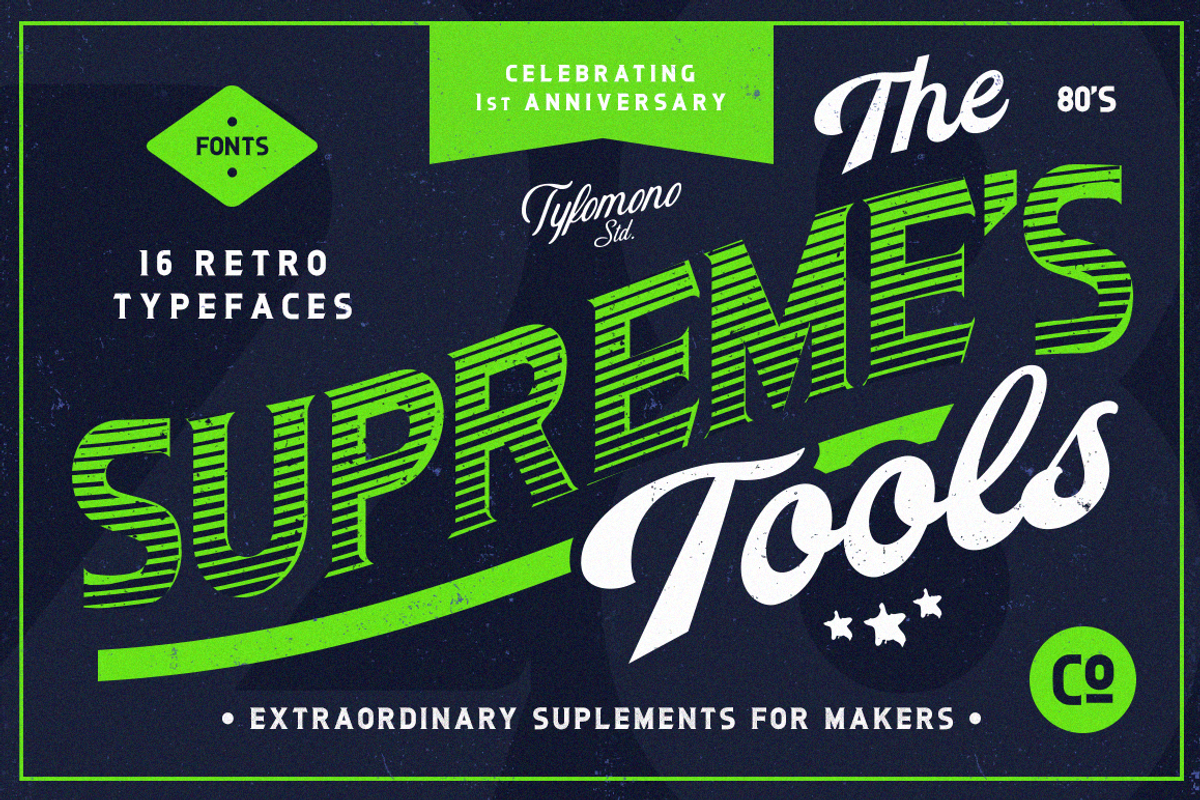
Supreme Tools • 16 Fonts Pack is perfect for tool company branding, industrial equipment labeling, workshop signage systems, construction business materials, automotive industry graphics, hardware store promotions, machinery manufacturer branding, technical documentation design, engineering firm communications, craftsman tool packaging, professional trade materials, and authoritative industrial communications.
Supreme Tools • 16 Fonts Pack is exciting because it delivers an unparalleled collection of 16 precisely engineered typefaces that embody the strength, reliability, and professional excellence associated with premium tools and industrial craftsmanship. This comprehensive font pack features diverse styles ranging from bold industrial display fonts to clean technical typefaces, each crafted to reflect the precision, durability, and superior quality that defines professional-grade tools and equipment. The collection's extensive variety ensures perfect typography for any project requiring industrial strength and professional reliability.
Supreme Tools • 16 Fonts Pack includes comprehensive font families: Industrial Bold Display, Technical Precision Sans, Workshop Script Style, Heavy Duty Condensed, Professional Clean Format, Mechanical Engineering Font, Tool Brand Signature, Construction Site Bold, Automotive Industry Type, Hardware Store Display, Craftsman Traditional Style, Modern Industrial Sans, Technical Documentation Font, Workshop Safety Signage, Professional Trade Script, and Specialty Tool Symbols, providing unlimited creative possibilities for industrial and professional design projects.
This powerful typography collection transforms standard communications into authoritative industrial experiences through its comprehensive variety of professional aesthetics and technical design principles. Supreme Tools • 16 Fonts Pack Free Download enables designers and industrial brands to access the most extensive premium tool typography collection that instantly adds strength, professionalism, and industrial authority to any creative project. The pack's incredible diversity ensures perfect font combinations while maintaining consistent quality and distinctive professional character across all 16 styles.
Tool manufacturers, industrial companies, and professional trade businesses trust Supreme Tools • 16 Fonts Pack for its ability to communicate quality, reliability, and professional excellence to audiences seeking superior tools and industrial solutions. The typeface collection's robust construction performs exceptionally well across various applications, from technical documentation to large-scale industrial branding campaigns. Its extensive character support includes multilingual capabilities and industry-specific design elements that enhance professional industrial brand presentations.
The design philosophy behind Supreme Tools • 16 Fonts Pack celebrates the precision engineering and professional craftsmanship that defines superior tool manufacturing and industrial excellence. This quality-focused approach creates a font collection that feels genuinely professional while maintaining contemporary relevance across different industrial contexts and professional brand expressions.
Whether creating tool company identities, industrial equipment materials, or professional trade campaigns, this comprehensive 16-font pack delivers exceptional results that embody the strength and reliability of premium tools. Download Supreme Tools • 16 Fonts Pack today and discover how the ultimate industrial typography collection can transform your design projects into powerful expressions of professional excellence, industrial strength, and the superior quality that defines the most trusted tool and equipment communications.